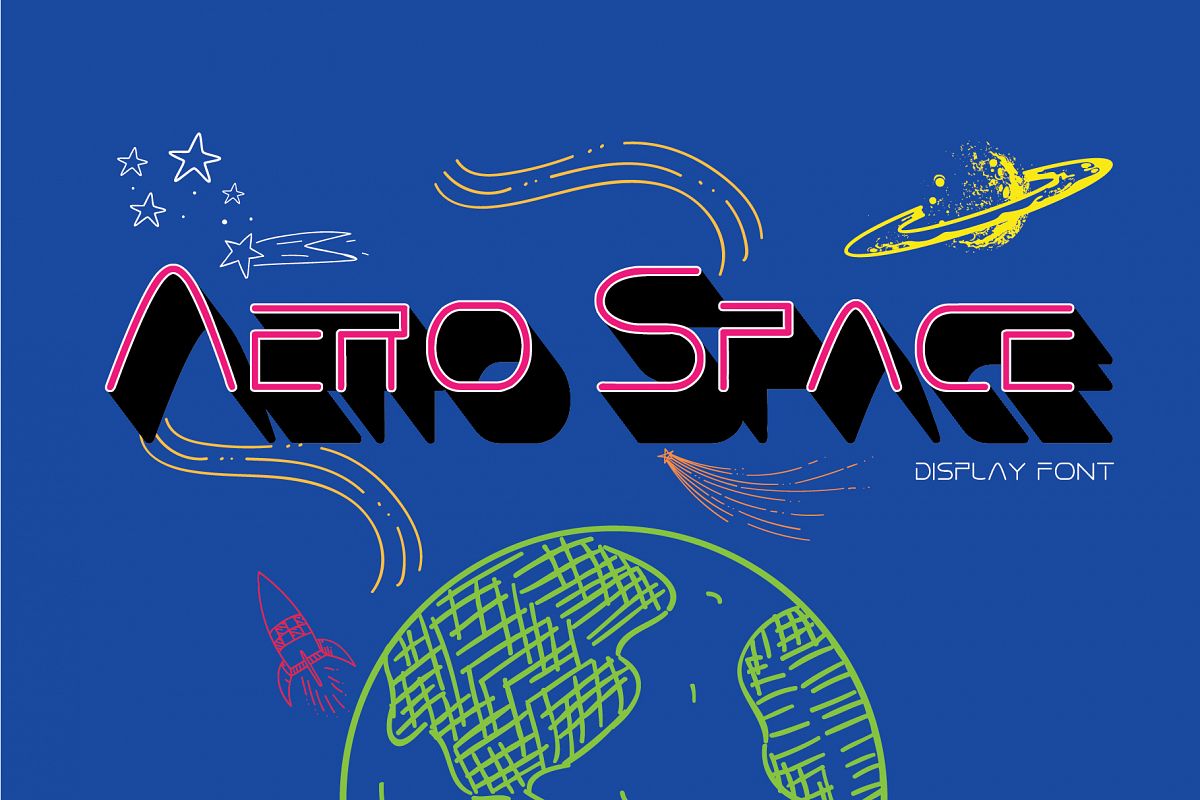
---AERO SPACE FONT---Inspired from the retro comic poster, we create a space font design theme. here is a AERO SPACE font it's perfect for you to give your poster design with authentic touch.USE Aero space works great in any poster, logos, magazines, films, banner.